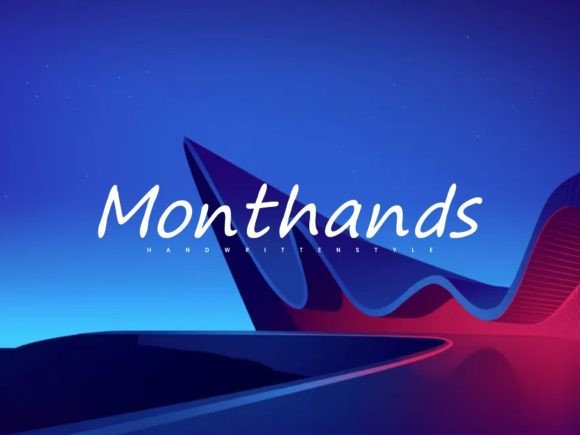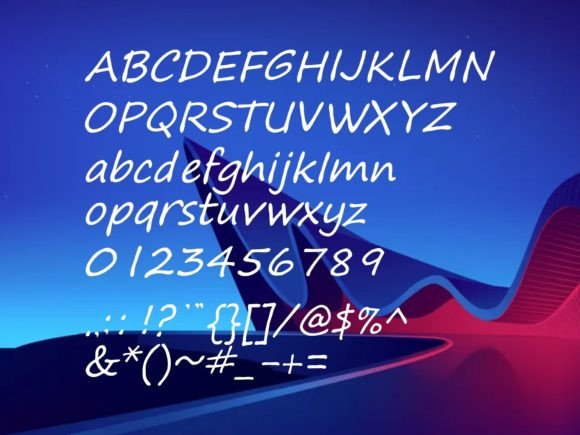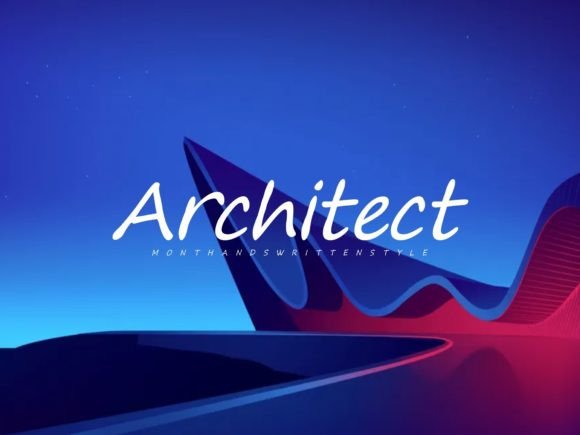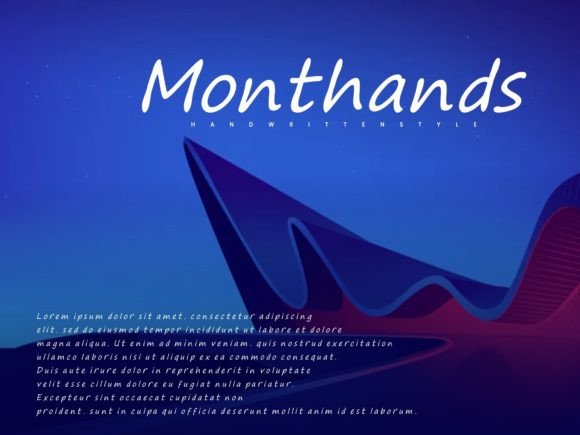
Monthands Font
About Monthands Font
Monthands is an elegant, simple, and beautiful handwritten font.
So perfect for anyone who needs a typeface for logo designs, magazines, social media, brochures, and many more.